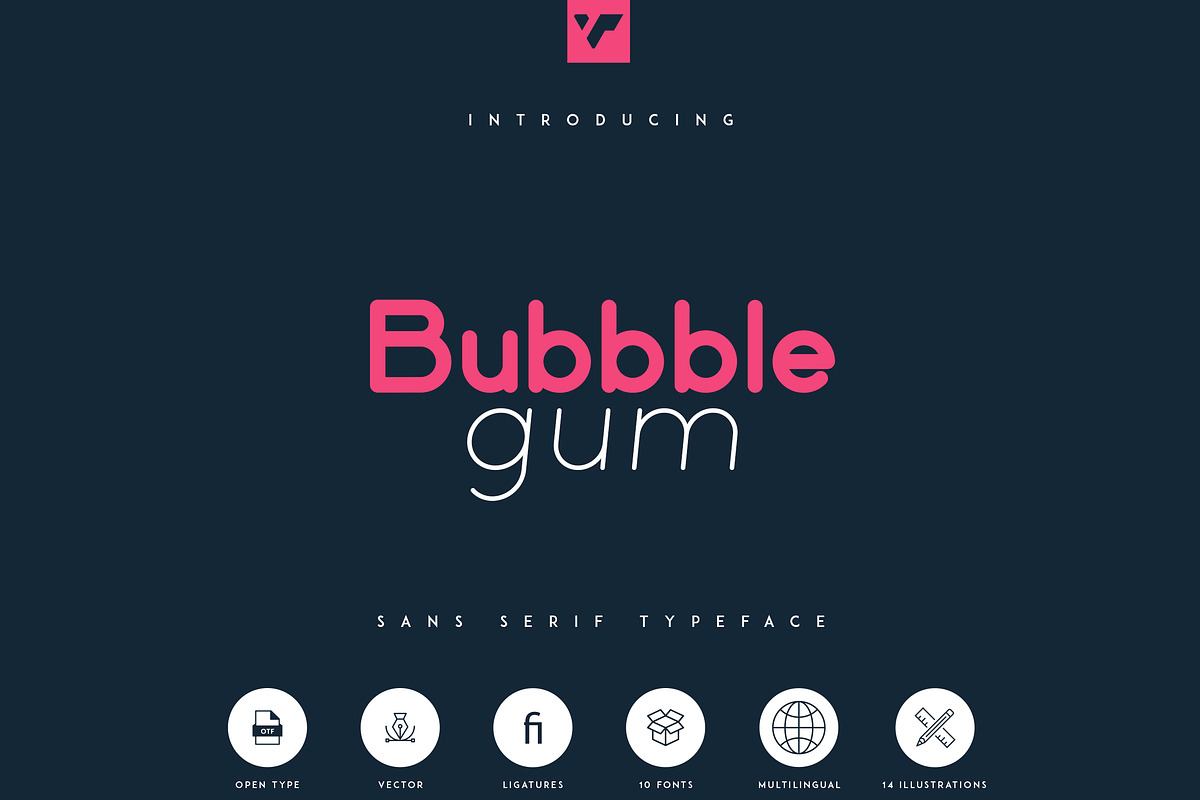
Bubbble Gum - Sans Serif Typeface Free Download is a fun and modern typeface that combines simplicity with boldness. Featuring clean lines, rounded edges, and a playful personality, this font is perfect for creative projects such as branding, social media graphics, posters, websites, and packaging.
The rounded, bubbly design of Bubbble Gum adds a youthful, friendly vibe to any project, making it ideal for brands targeting a fun-loving, youthful audience. Its versatility makes it suitable for both professional and casual design work.
Add a playful touch to your designs with the lively, clean style of Bubbble Gum!